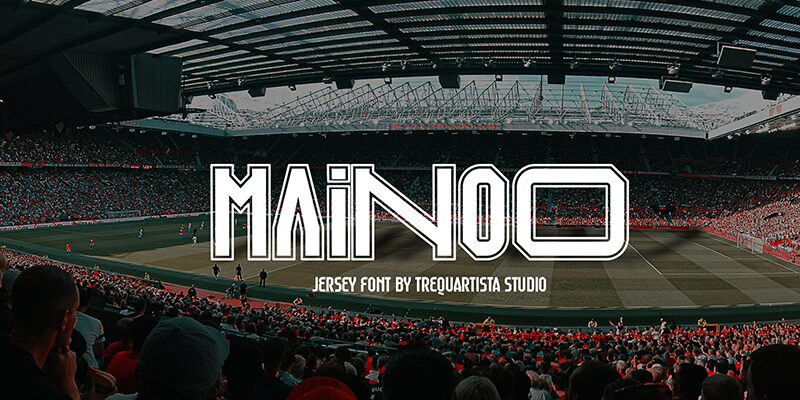
Mainoo font family by Trequartista Studio has 5 font styles. The free font imposes a high standard of style and impeccable visual balance like no other. With geometric origins, it exhibits modern and sporty qualities — ideal for an eye-catching design result.
Mainoo font will prove perfect in projects related to the sports industry both on branding elements (logos), promo designs or t-shirt prints. But it can also serve as an original font for beauty, fashion and cosmetics and anything else that you consider fitting.